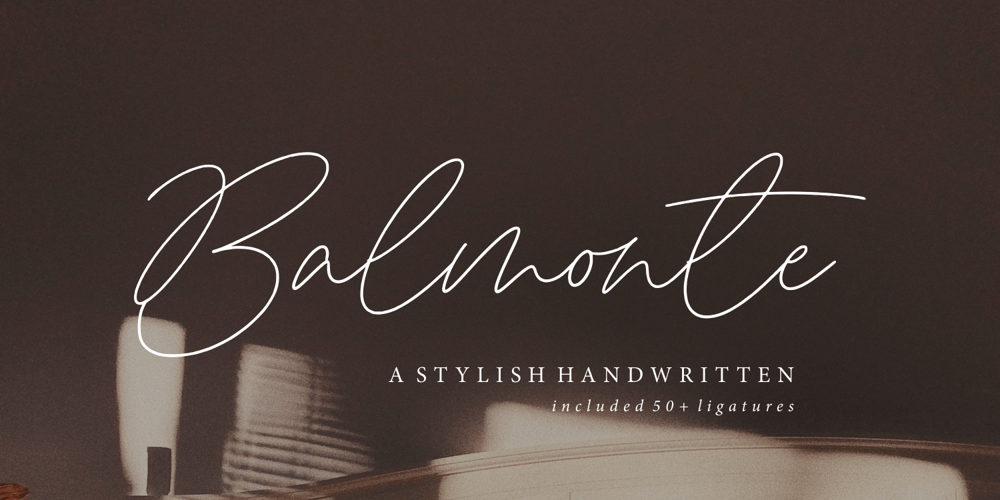
Balmonte
Balmonte font
Balmonte Font Family was designed by Andre Bima Falah Rabbani and published by Atharuah Studios. Balmonte contains 1 styles and family package options. Introducing Balmonte; A stylish hand-drawn script font. This font has been designed with a heart that is completely hand-drawn and the addition of 53 special ligatures creates a perfect balance and beauty.Adding a ligature will give your text extra quality and distinction. It’s the perfect choice for stylish branding & logo projects, product packaging, handwritten quotes, editorial design, and more.What’s Included:Balmonte comes with a single font file that includes uppercase, lowercase, numbers, punctuation, and multilingual support.That’s it! I hope you enjoy it.You can also say hello to me on Instagram: https://www.instagram.com/atharuah_Thank You!